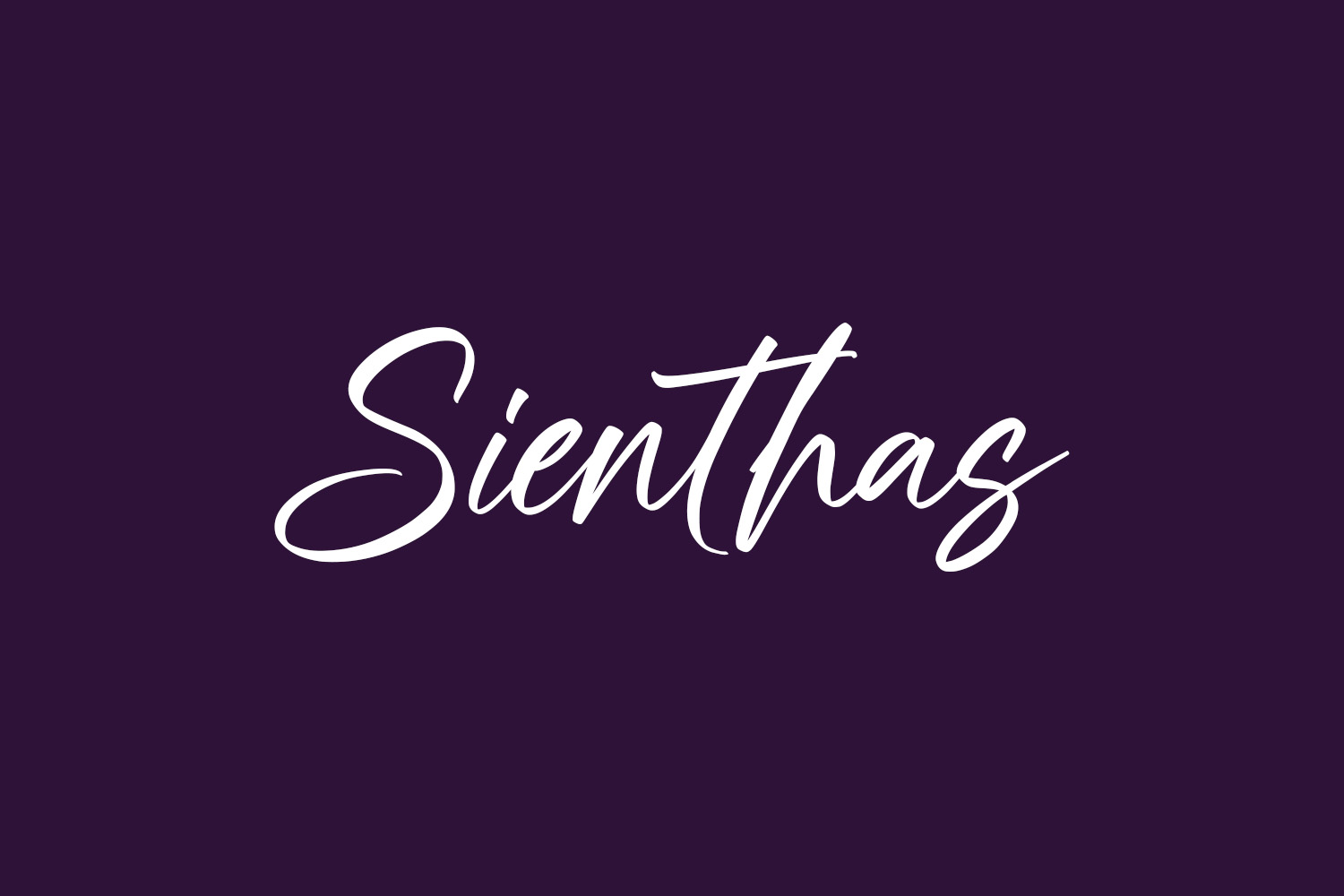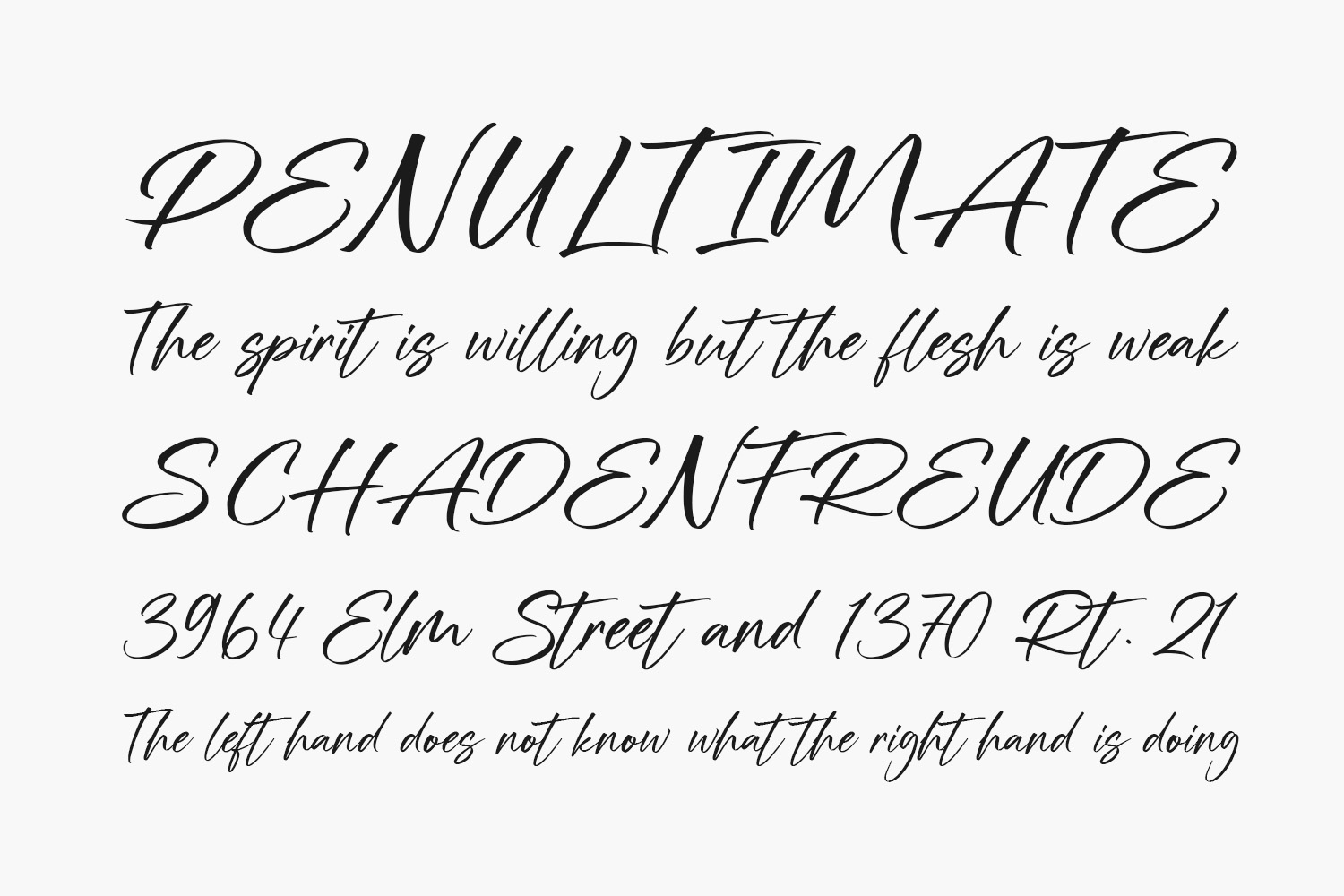
Sienthas Free Font is a beautiful light handwritten font with a unique feel and a stunning impact. It will add a luxury spark to any design project that you wish to create. Sienthas Free Font was designed by Hanzel Space and is free for personal use only. Please purchase the full version for commercial use.